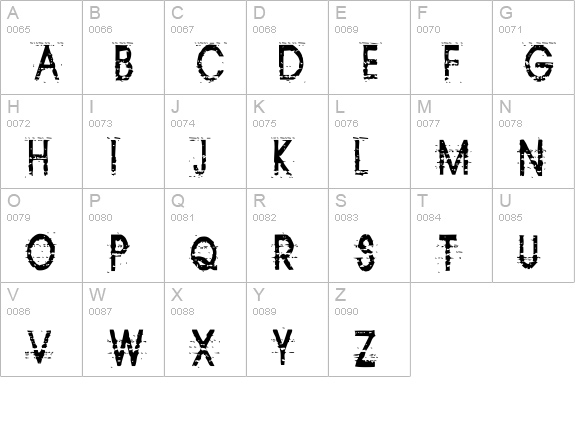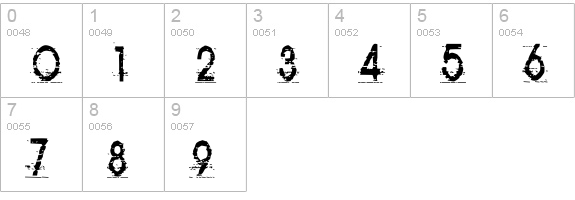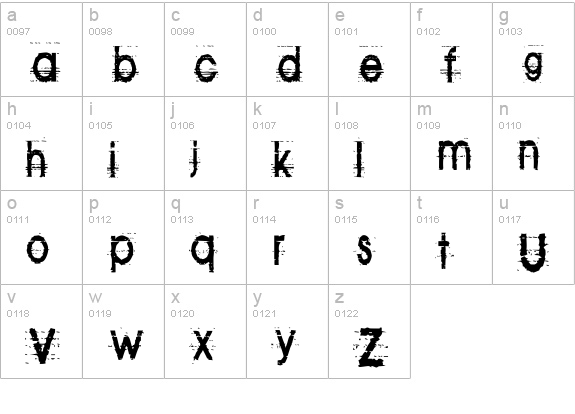
Tom Violence (AUTOSPACED) Font Details
Introducing Tom Violence (AUTOSPACED) font, the perfect blend of modernity and edginess. This typeface exudes a rebellious spirit, making it ideal for any design project that requires a touch of boldness and individuality. With its unique spacing style, Tom Violence (AUTOSPACED) font breaks away from traditional typography, giving your text an avant-garde aesthetic that is sure to captivate and intrigue. The uneven spacing between characters creates a visual rhythm that adds a dynamic and energetic feel to your designs. Not only does Tom Violence (AUTOSPACED) font bring an edgy vibe to your work, but it also offers the convenience of being freely available to download at FontsMarket.com. This means that you can easily access this font and incorporate it into your projects without any hassle. Whether you're designing a poster, a logo, or a website, Tom Violence (AUTOSPACED) font will elevate your design to new heights. It effortlessly combines modernity with a rebellious spirit, making it a versatile choice for any creative endeavor. So don't hesitate, download Tom Violence (AUTOSPACED) font today and set your designs free from the constraints of traditional typography.